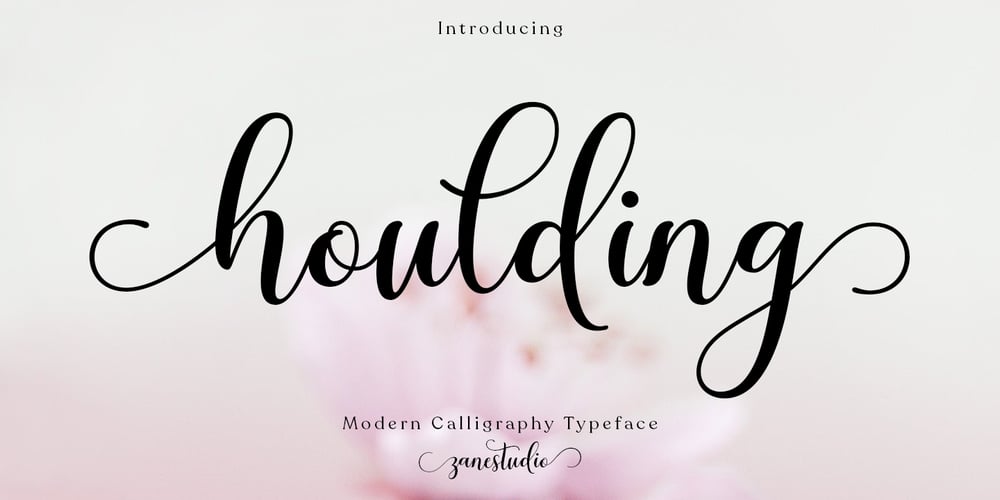
Houlding Script Font Family was designed by Mur Zani and published by Zane Studio. Houlding Script contains 1 styles and family package options. Houlding Script, a new & modern script with a handmade calligraphy style, decorative characters, and an eye-catching baseline!Very beautiful in invitations like greeting cards, branding materials, business cards, quotes, posters and more !!Houlding Script is equipped with 440 glyphs. Alternative characters are divided into several Open Type features such as Swash, Stylistic Sets, Stylistic Alternates, Contextual Alternates.The Open Type feature can be accessed using programs that understand Open Type such as Adobe Illustrator, Adobe InDesign, Adobe Photoshop Corel Draw X version, and Microsoft Word. And this font has provided PUA unicode (custom coded font). so that all the stunt doubles characters are fully accessible to the craftsman or designer.Foreign Language Support:ÀÁÂÃÄÅÇÈÉÊËÌÍÎÏÐÑÒÓÔÕÖØÙÚÛÜÝßàáâãäåæçèéêëìíîïðñòóôõöøùúûüýÿHoulding Script:Uppercase & Lowercase International Languages & Symbols Support Punctuation & Numbers Unicode Ranges PUA Standards Alternative Style Alternatives Set Styles 1-17 Characters Contextual Variation.If you don’t have a program that supports OpenType features such as Adobe Illustrator and CorelDraw X Version, you can access all alternative glyphs using Font Book (Mac) or Character Map Windows).If you have any questions, feel free to contact me. Thank you and happy designing 🙂